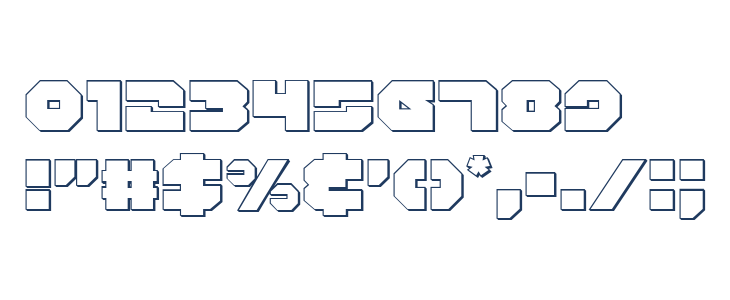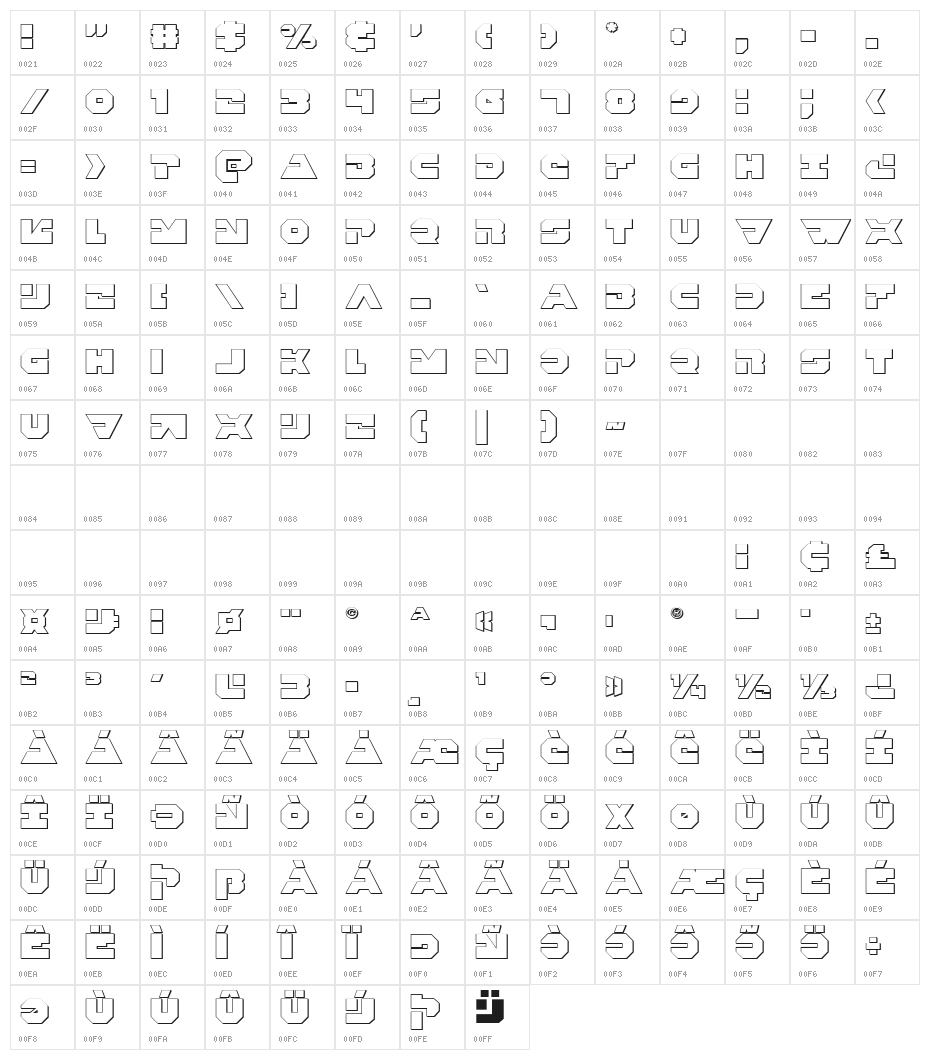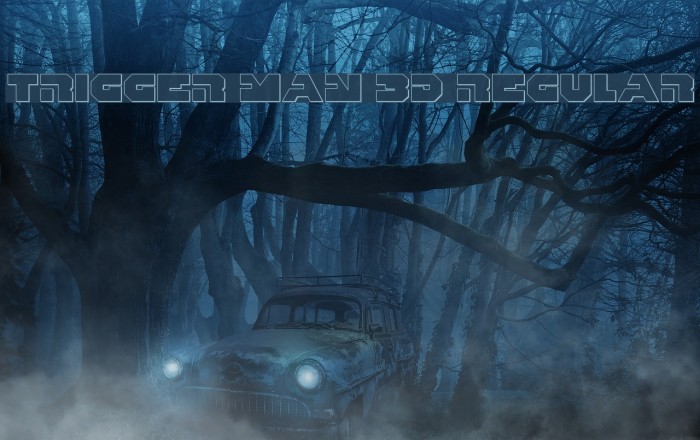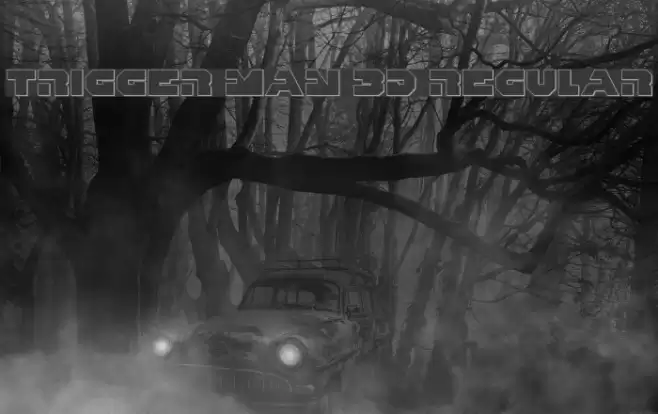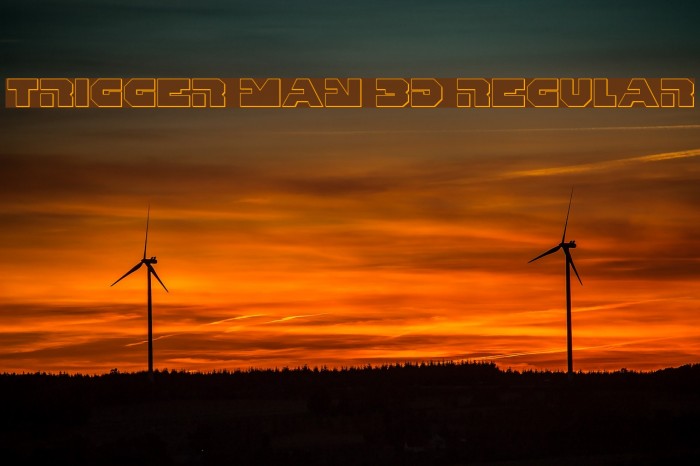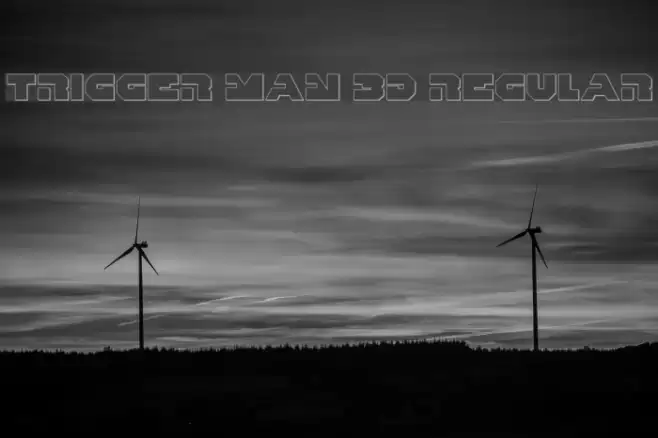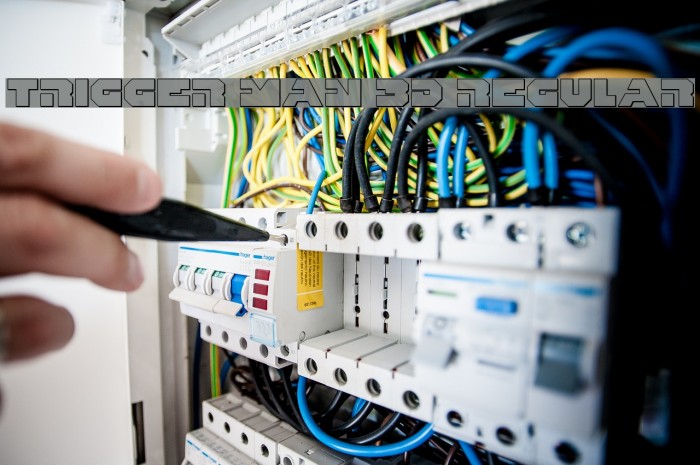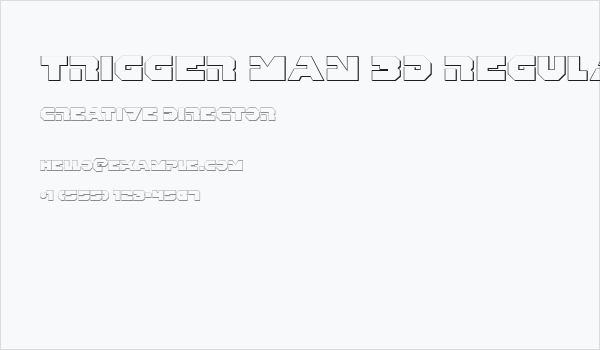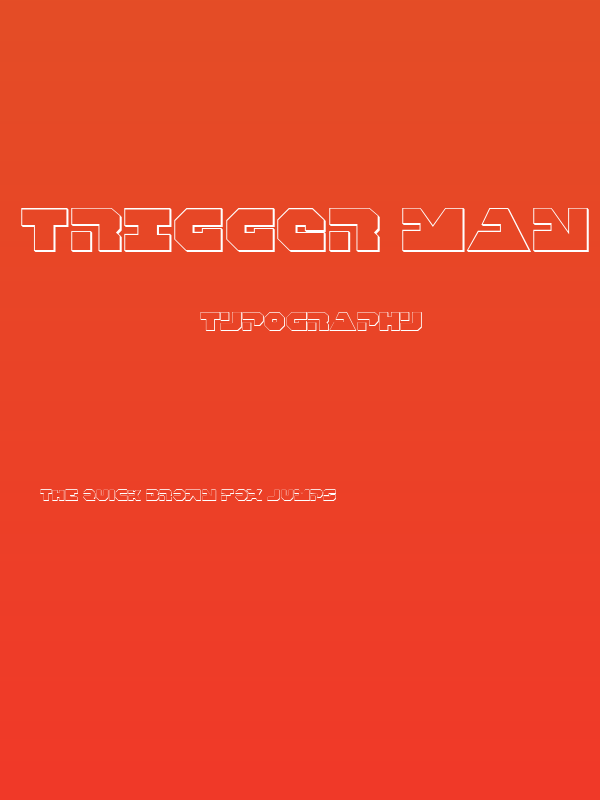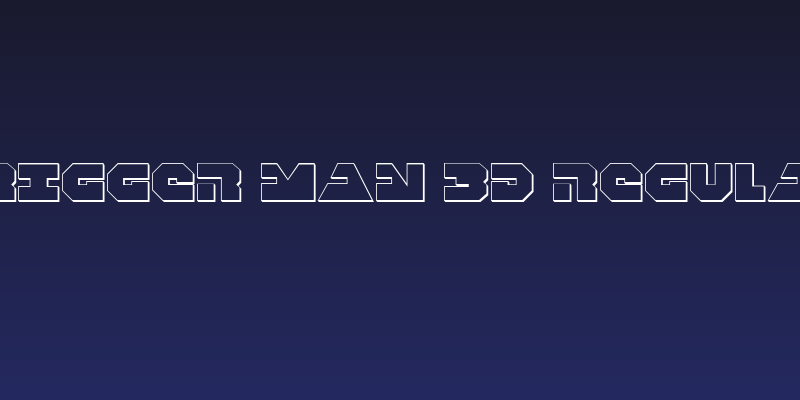
Trigger Man 3D Regular Font
Trigger Man 3D Regular Description
This font features a bold, geometric design with a three-dimensional effect, giving it a futuristic and industrial feel. The characters are constructed with sharp angles and straight lines, creating a sense of depth and structure. The uppercase and lowercase letters maintain a consistent style, with a blocky appearance that emphasizes their solid form. The numbers and special characters follow the same design principles, ensuring uniformity across all elements. This font's unique style makes it stand out, suitable for projects that require a modern and edgy look.
| Proposed Projects | Ideal for video game titles, tech-themed posters, and futuristic branding. |